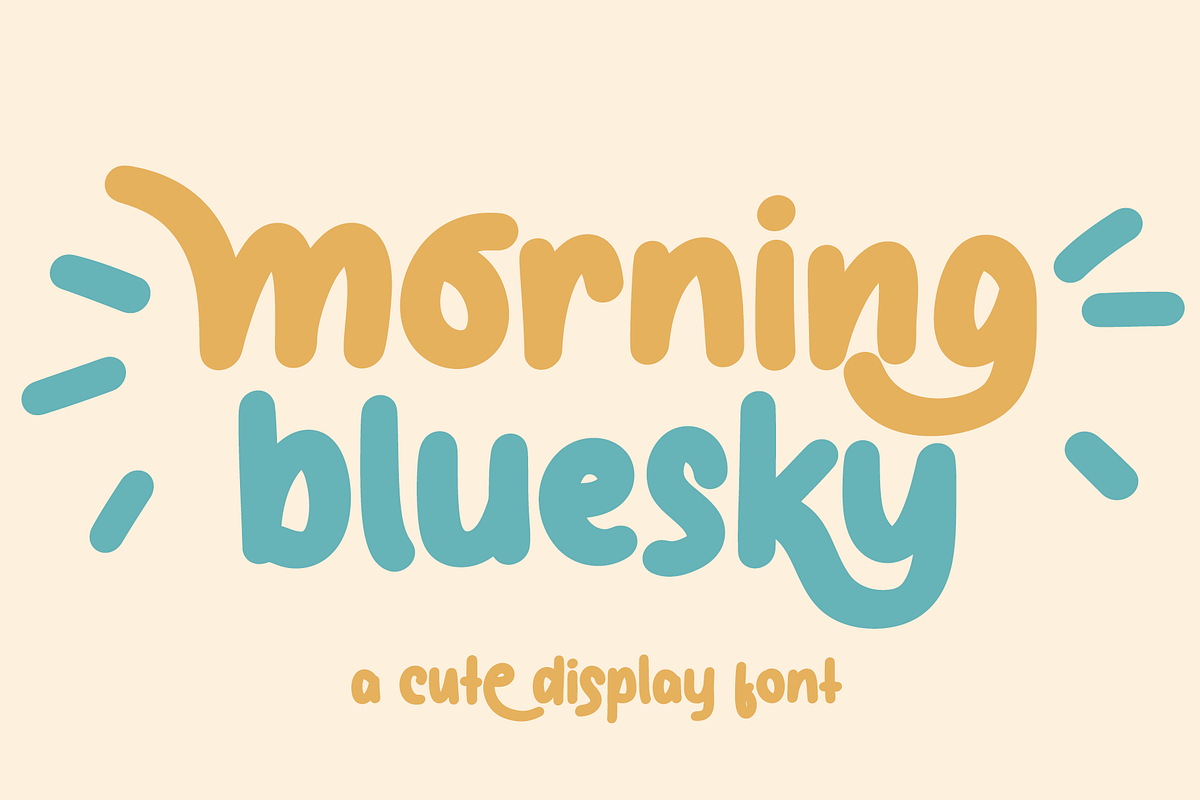
Morning Bluesky - Fun Font Free Download is a lively and whimsical typeface with playful letterforms that bring a lighthearted and cheerful touch to any design. Perfect for branding, social media graphics, invitations, and projects that need a joyful, informal vibe, Morning Bluesky adds personality and energy to your typography.
Morning Bluesky - Fun Font Free Download is ideal for creating fun and engaging designs that capture attention. Whether you're designing for a kids' event, crafting playful branding, or creating upbeat promotional materials, this font brings a refreshing, carefree vibe to your work. Download it today and infuse your designs with the bright, happy spirit of Morning Bluesky!